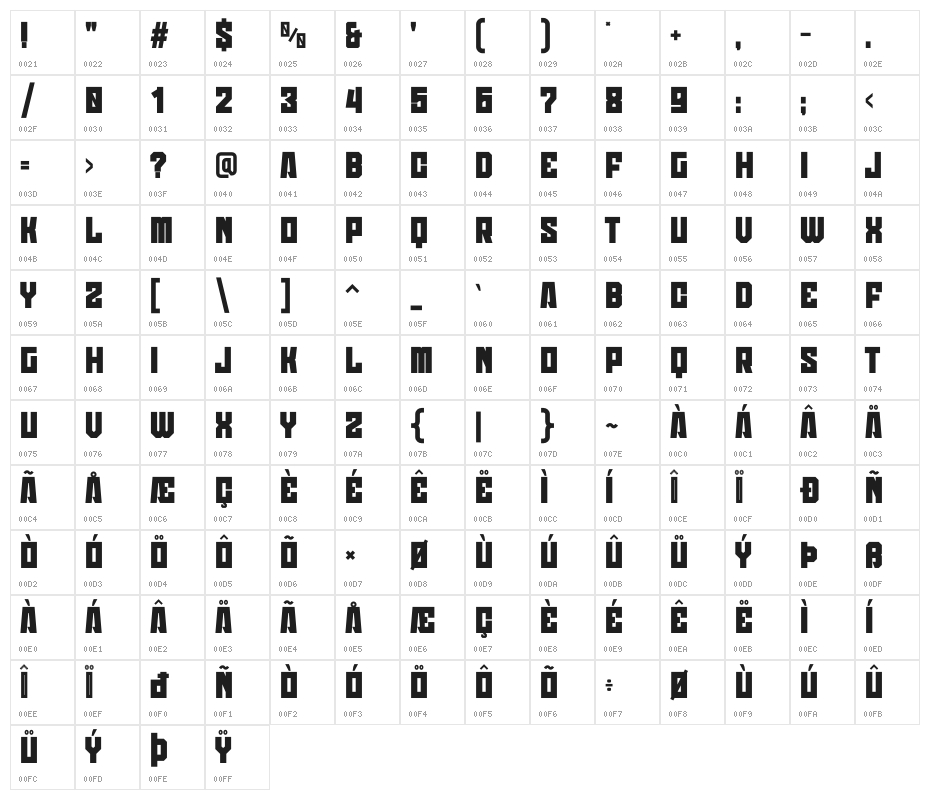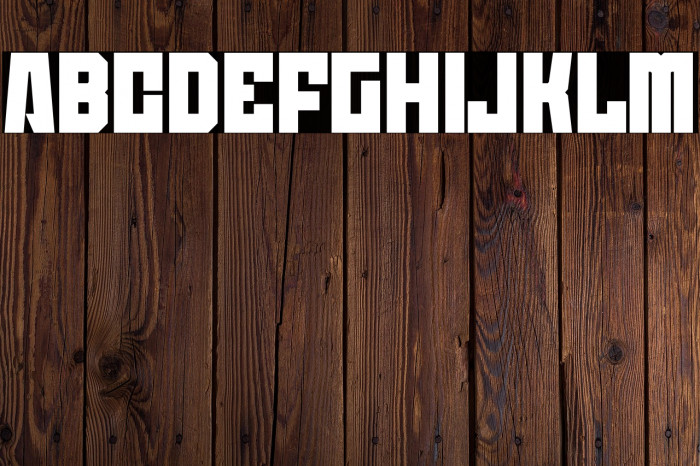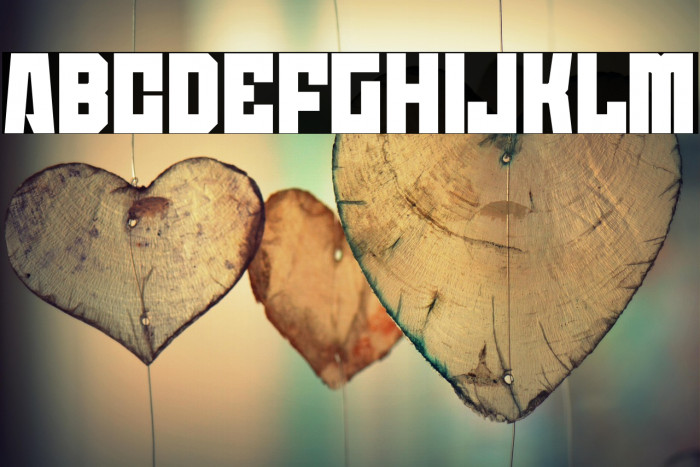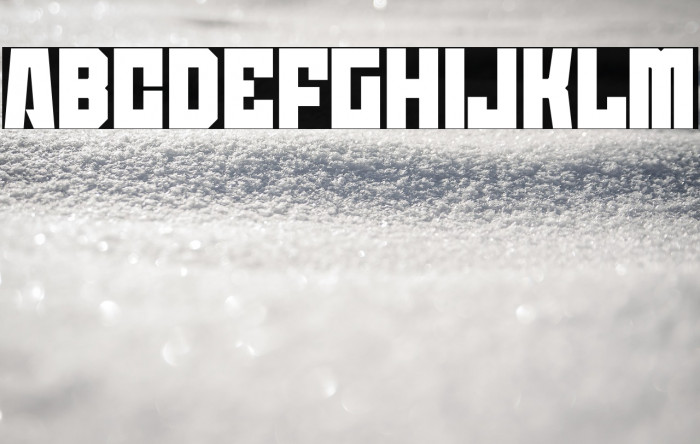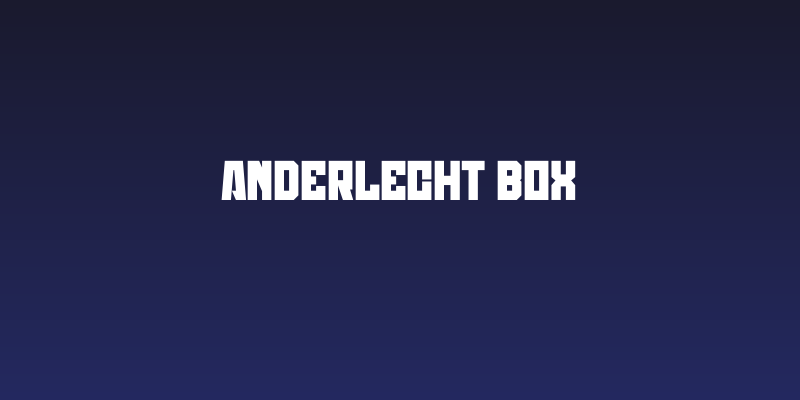
Anderlecht Box Font
Anderlecht Box Description
This font features a bold, geometric design with strong, angular lines and a blocky appearance. The characters are uniformly wide, giving the font a monospaced look, although it is not strictly monospaced. The uppercase letters are particularly striking, with sharp edges and a modern, industrial feel. The numbers and special characters maintain this bold aesthetic, ensuring consistency across all glyphs. The font's heavy weight and solid structure make it ideal for attention-grabbing designs.